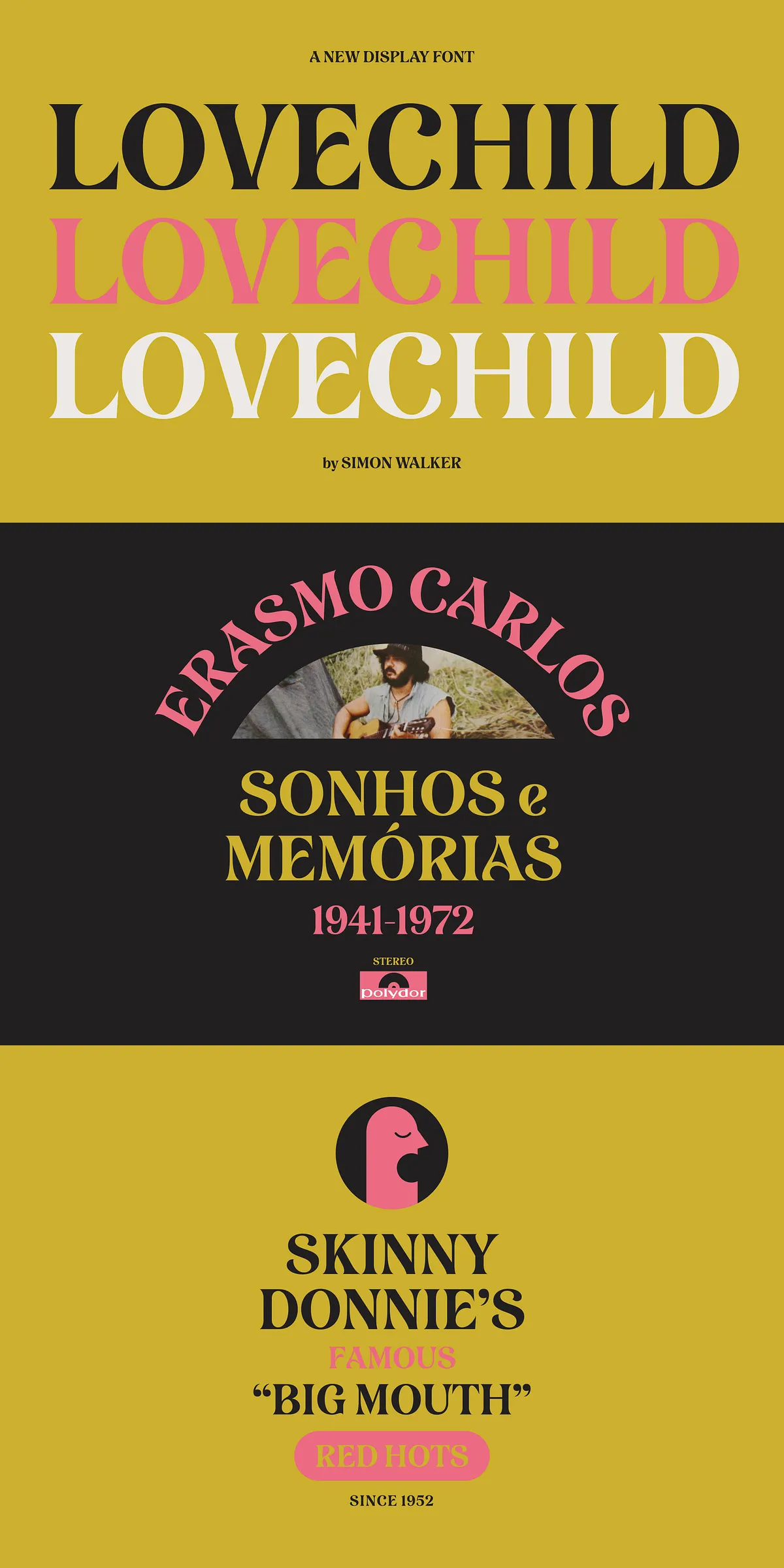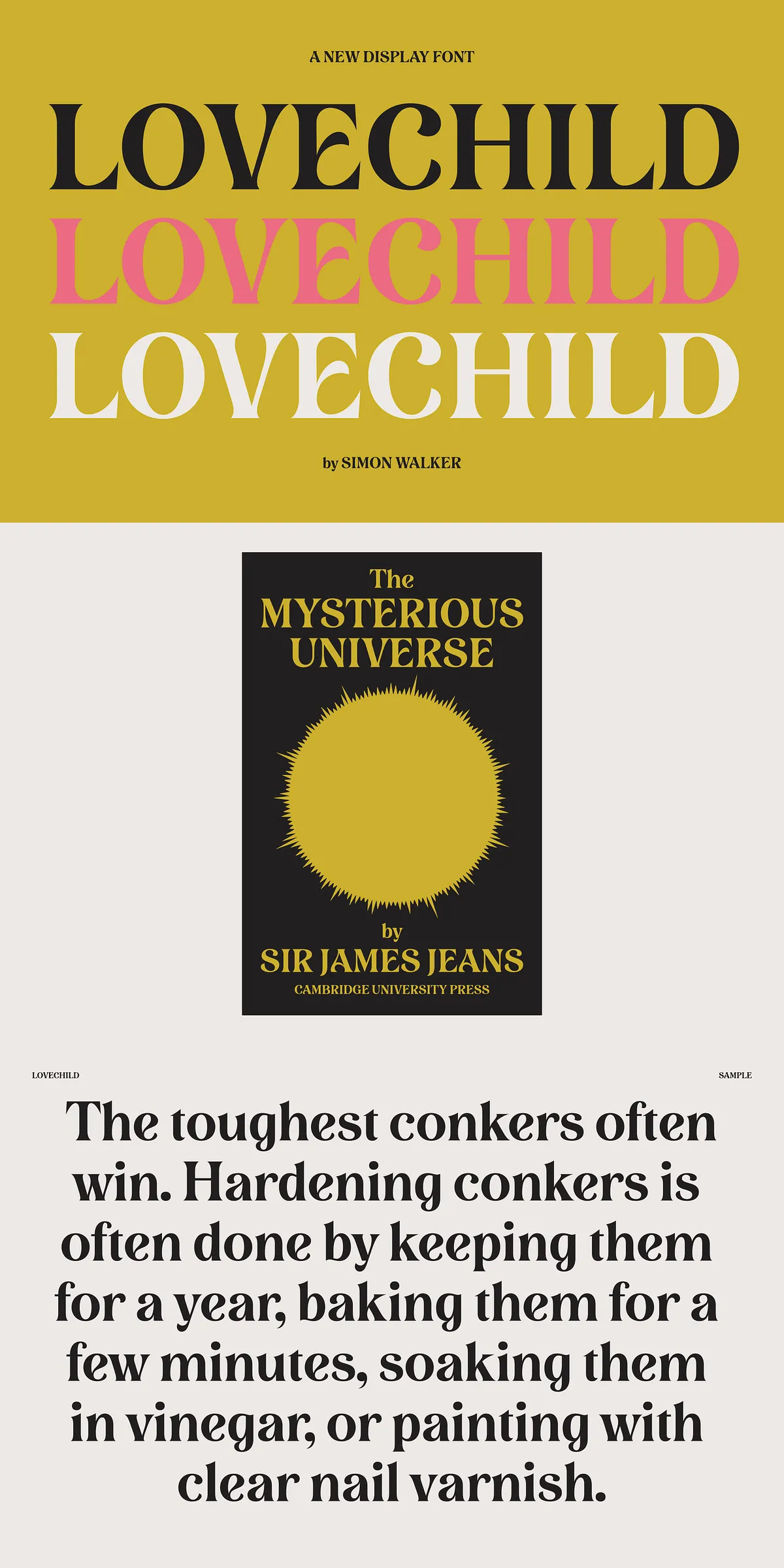
Lovechild
Step into the world of bold visual expression with the Lovechild Specimen PDF—a meticulously designed showcase that transforms a simple font into a living, breathing creative force. This is not a mere preview; it’s your front-row pass to the full narrative of a typeface built for impact, personality, and unforgettable design moments. Whether you’re a seasoned designer, a branding visionary, or a creative enthusiast, this specimen delivers the inspiration, precision, and energy needed to elevate your work from ordinary to extraordinary.
Discover the Soul of Lovechild: More Than Just Letters
Lovechild is engineered for those who believe typography should tell a story. The Lovechild Specimen PDF doesn’t just present glyphs—it reveals the intent, attitude, and emotional depth behind each letterform. Dive into pages packed with dynamic compositions that explore:
• Creative Pairings: Observe how Lovechild interacts with complementary fonts in headlines, captions, and body text, creating rich visual hierarchies that command attention.
• Real-World Applications: See the typeface in action across high-impact branding, editorial layouts, album covers, packaging, digital interfaces, and social media content—proving its versatility across every medium.
• Contextual Performance: Experience Lovechild within authentic design frameworks, offering immediate insight into its behavior, readability, and impact when used in professional, time-sensitive projects.
• Advanced Typography Features: Examine the full suite of OpenType features, ligature systems, extended character sets, and multilingual support (90+ languages) in practical, visually compelling examples.
• Technical Mastery: Gain a deep understanding of stroke dynamics, spacing mechanics, and responsive behavior across print and screen environments.